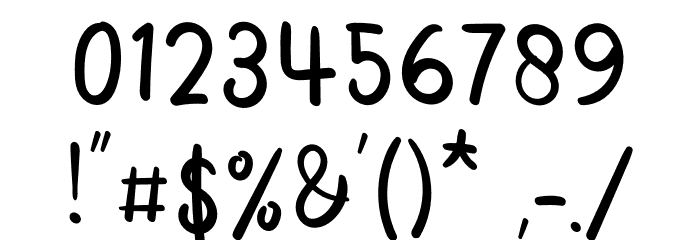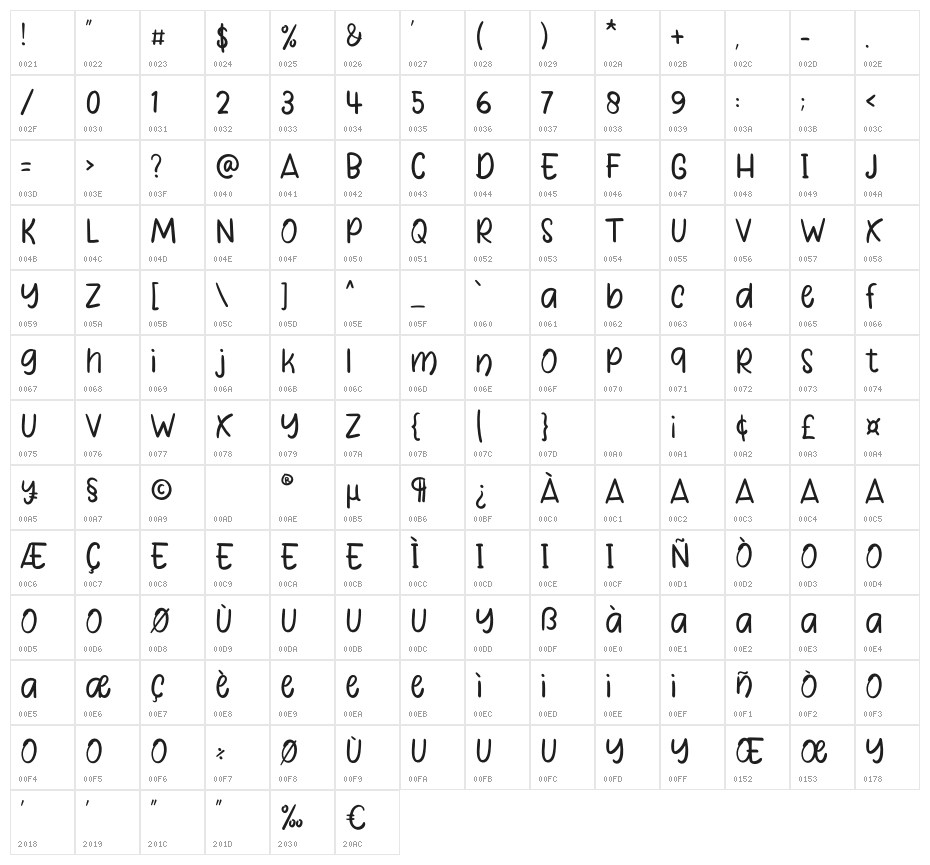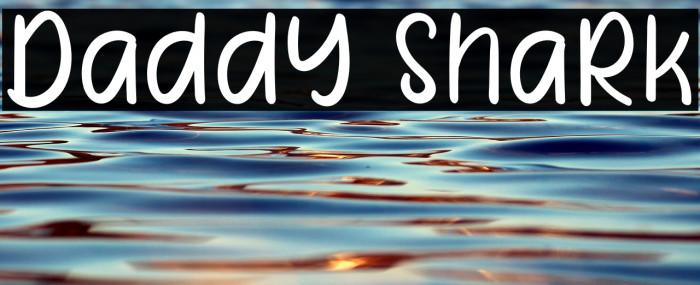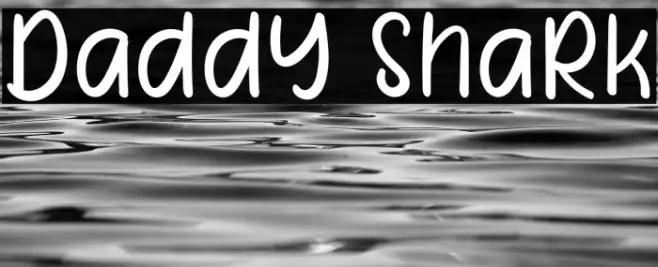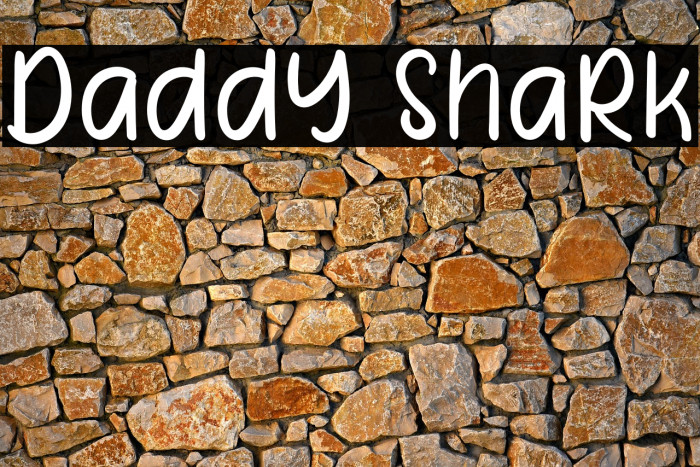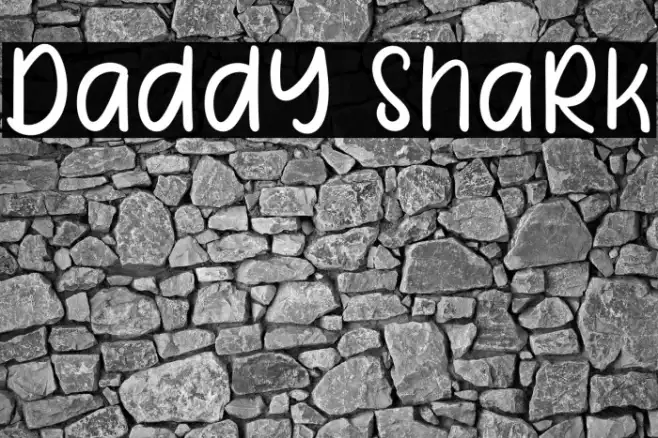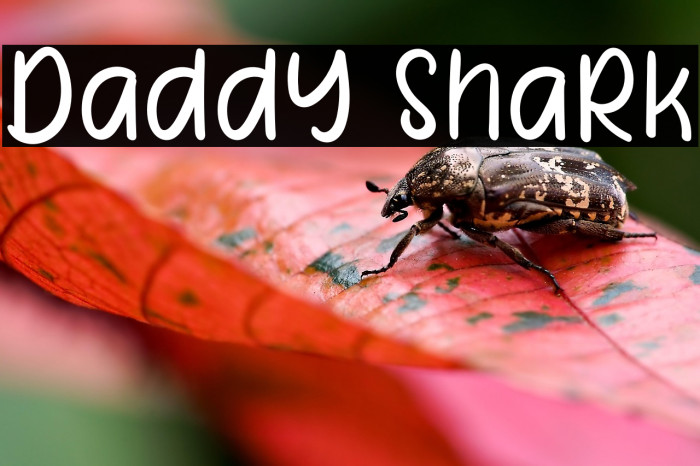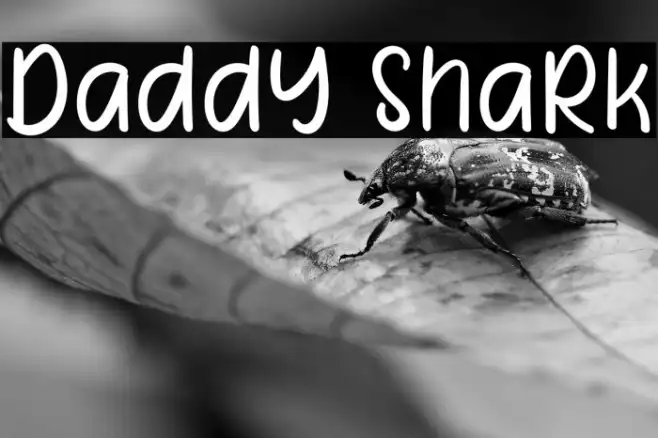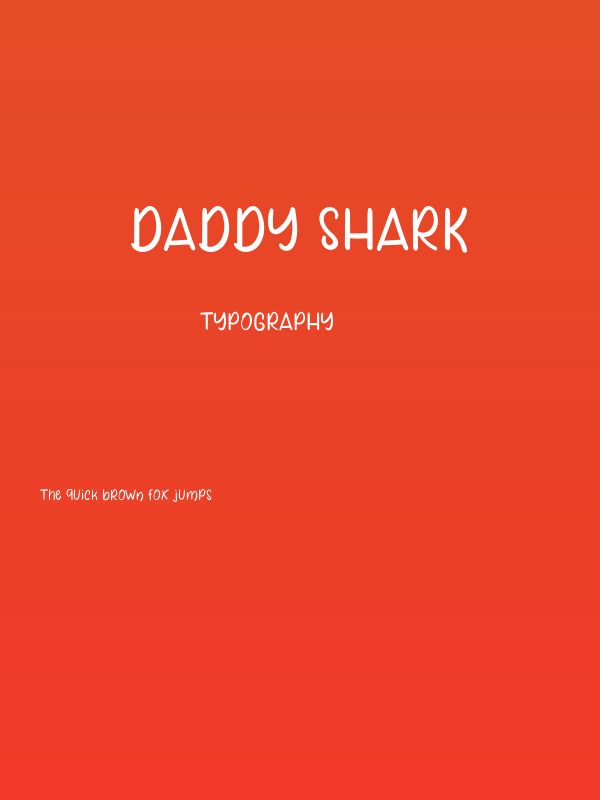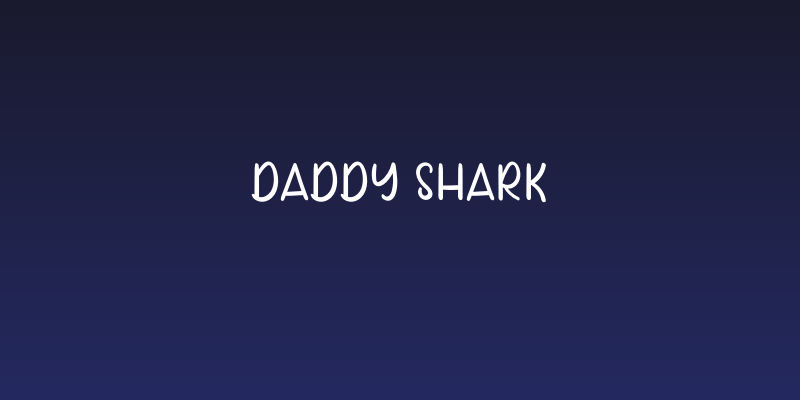
Daddy Shark Font
Daddy Shark Description
This playful and whimsical font features a handwritten style with smooth, rounded edges and a casual, friendly appearance. The characters are slightly irregular, adding a touch of personality and charm. The uppercase and lowercase letters maintain a consistent flow, while the numerals and special characters complement the overall design. The font's informal nature makes it ideal for projects that require a personal touch, such as invitations, greeting cards, or children's book covers. Its legibility and unique style ensure it stands out while remaining easy to read.
| Overall Style | Playful, Casual |
| Use Case | Headlines, Informal text, Branding |
| Proposed Projects | Ideal for invitations, greeting cards, children's book covers, and playful branding. |